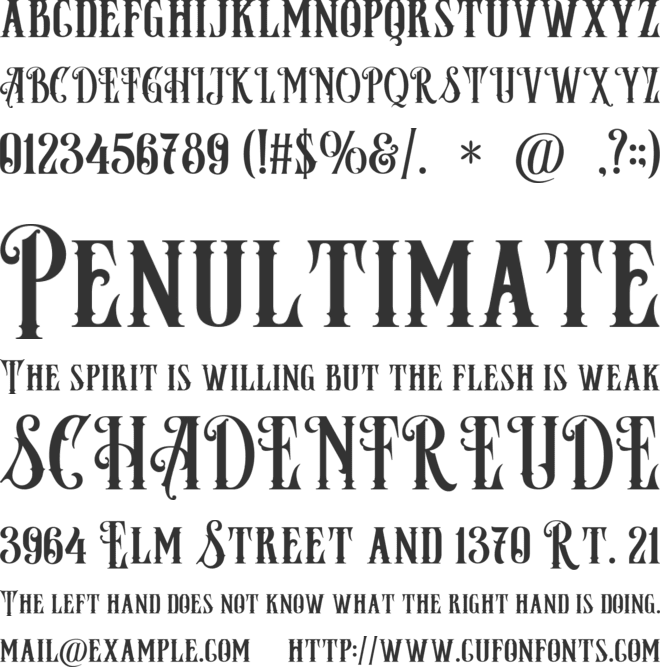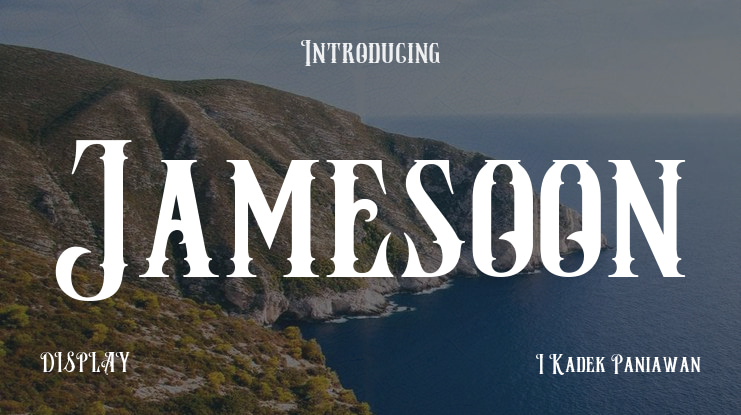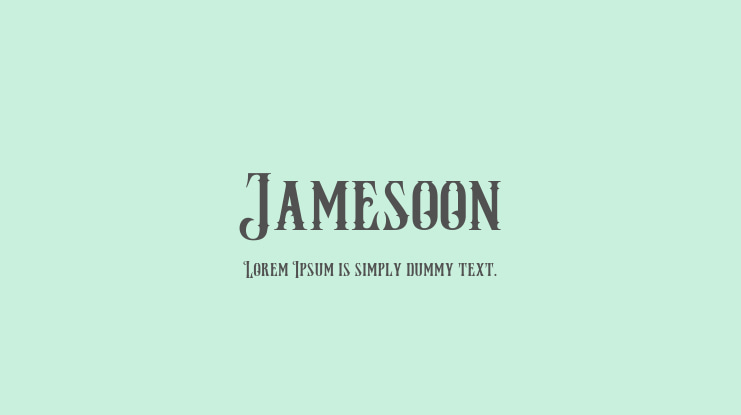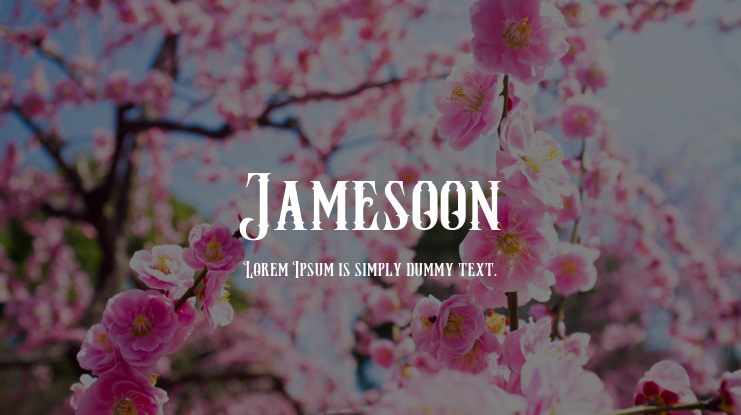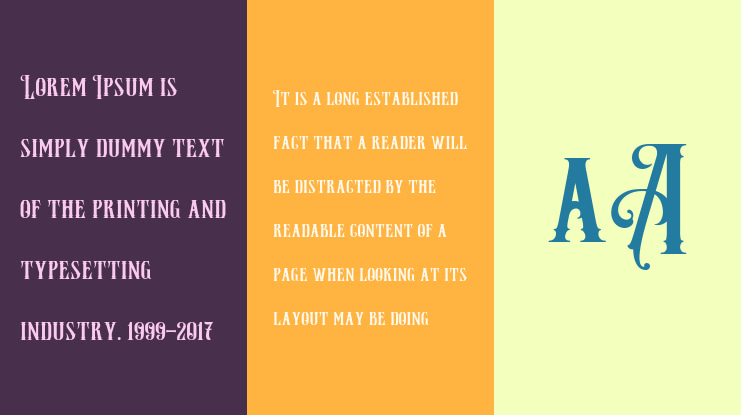
Jamesoon Font
Step into the elegance of a bygone era with the Jamesoon Victorian Font, a beautifully crafted serif typeface inspired by the luxurious charm of the Victorian period. This font elegantly captures the essence of vintage allure with a modern twist, making it an excellent choice for designs that require sophistication, elegance, and a touch of classical romance.